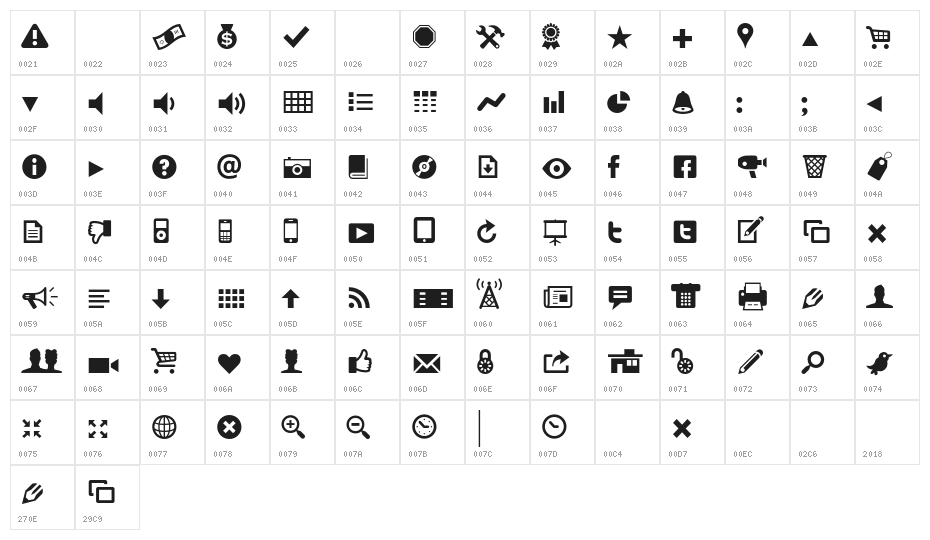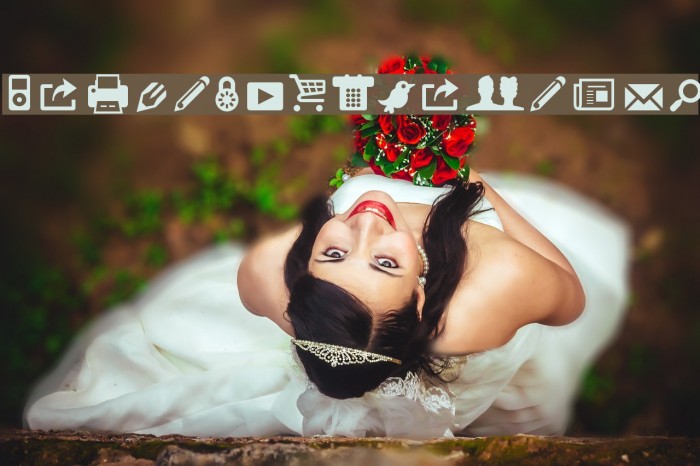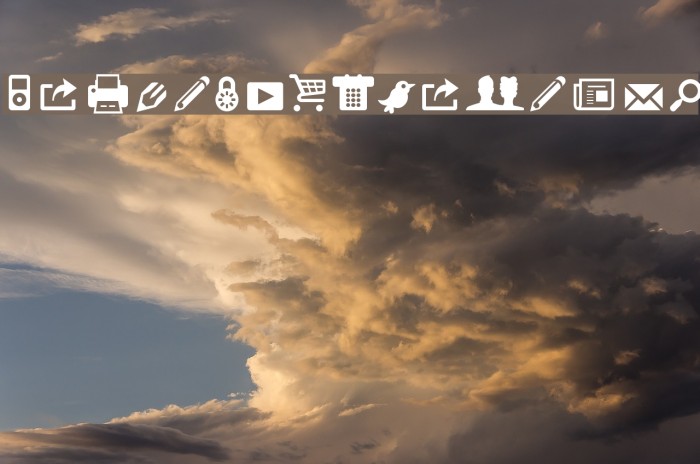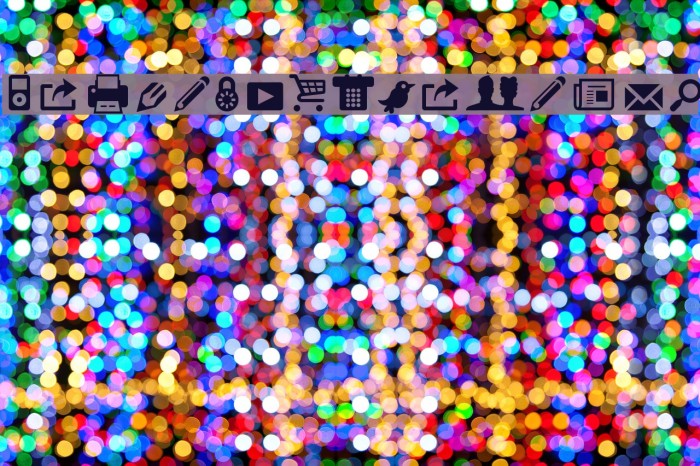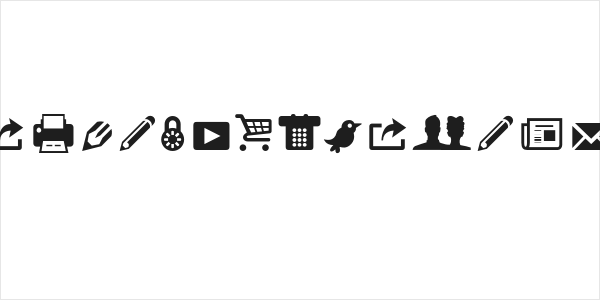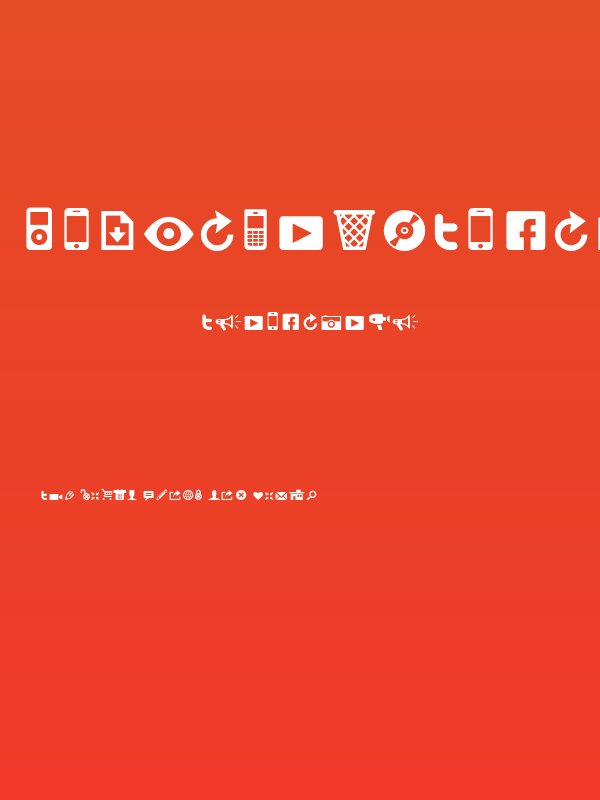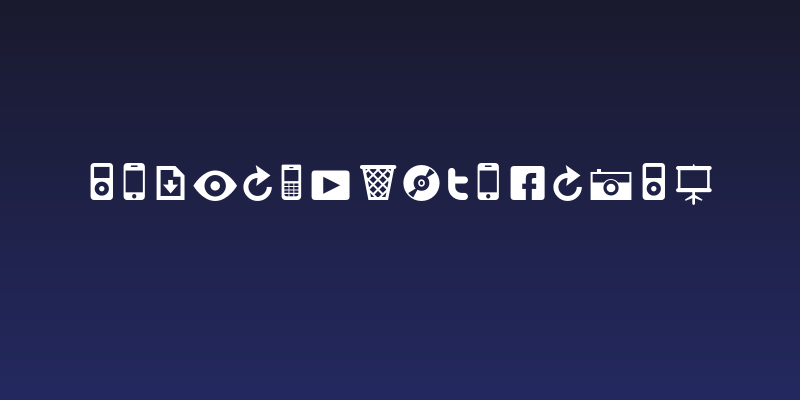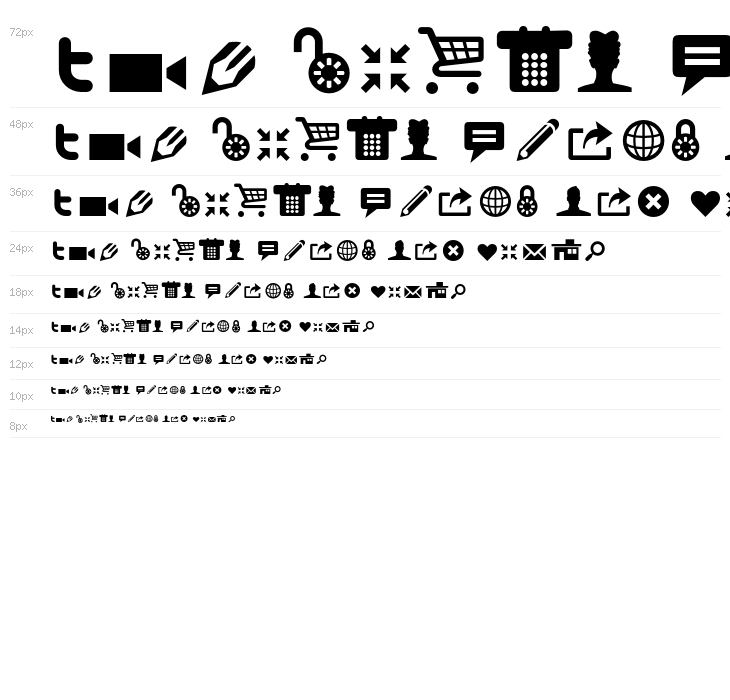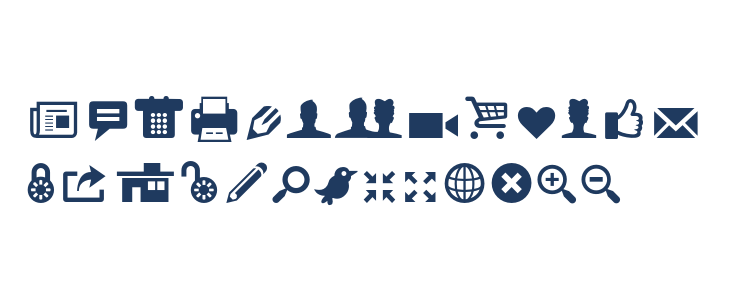
ModernPictograms Font
ModernPictograms Description
A set of bold, geometric pictograms with consistent stroke weight, featuring simplified and easily recognizable icons for common actions, objects, and interface elements. The icons are solid, filled shapes with minimal detail, designed for clarity and legibility at small sizes.
| Overall Style | Modern, Minimalist |
| Use Case | Icons, UI elements, buttons, navigation, infographics |
| Proposed Projects | User interfaces, mobile apps, web design, signage, infographics, dashboards. |